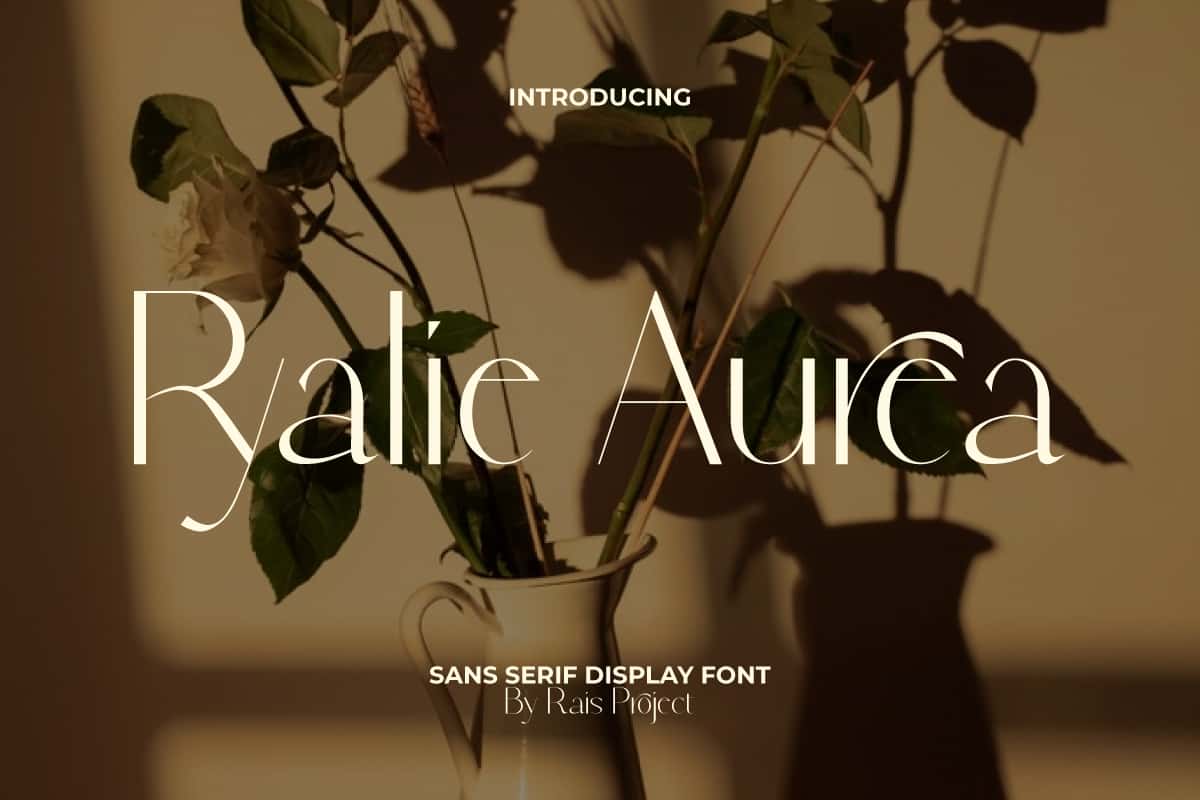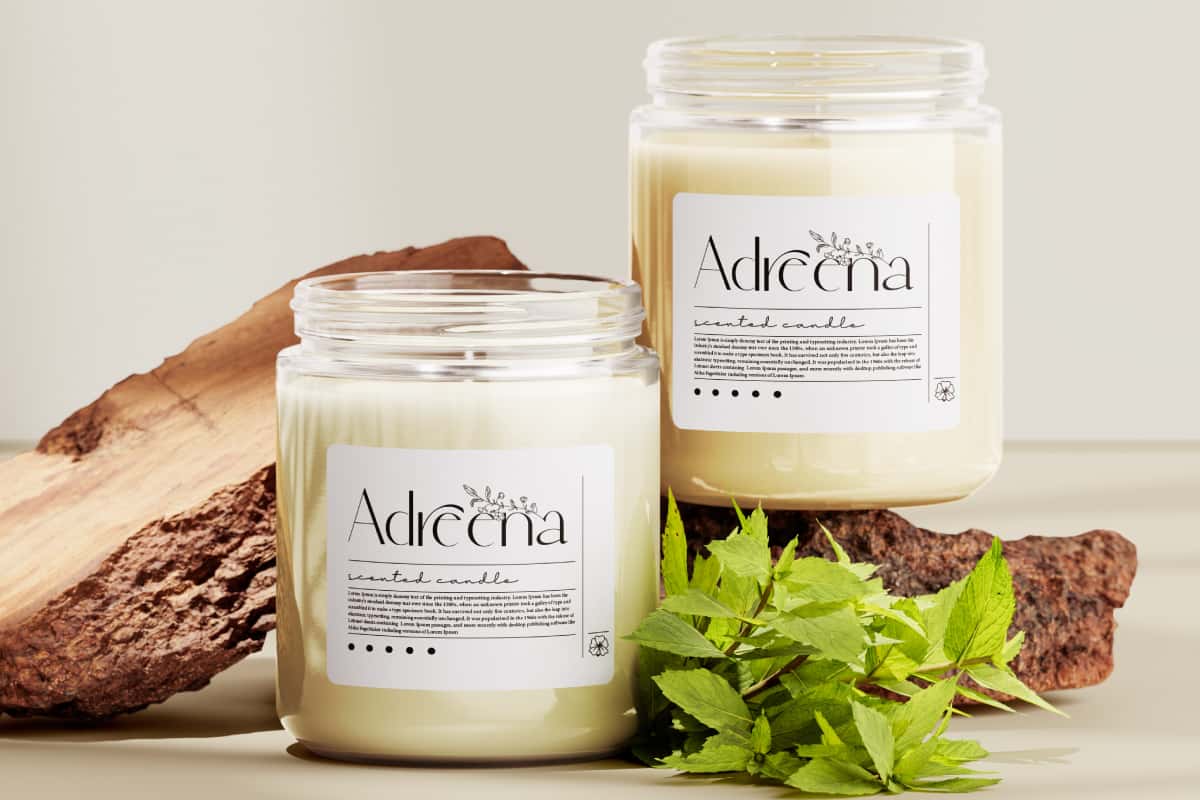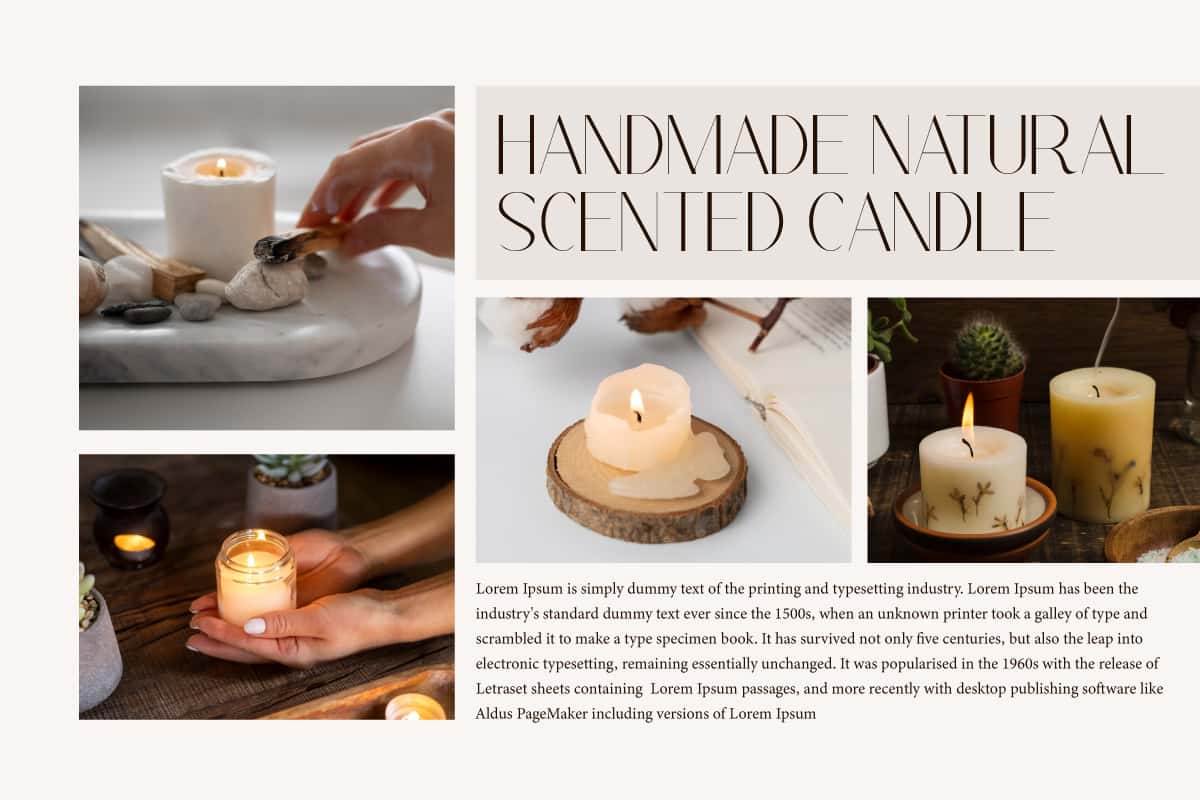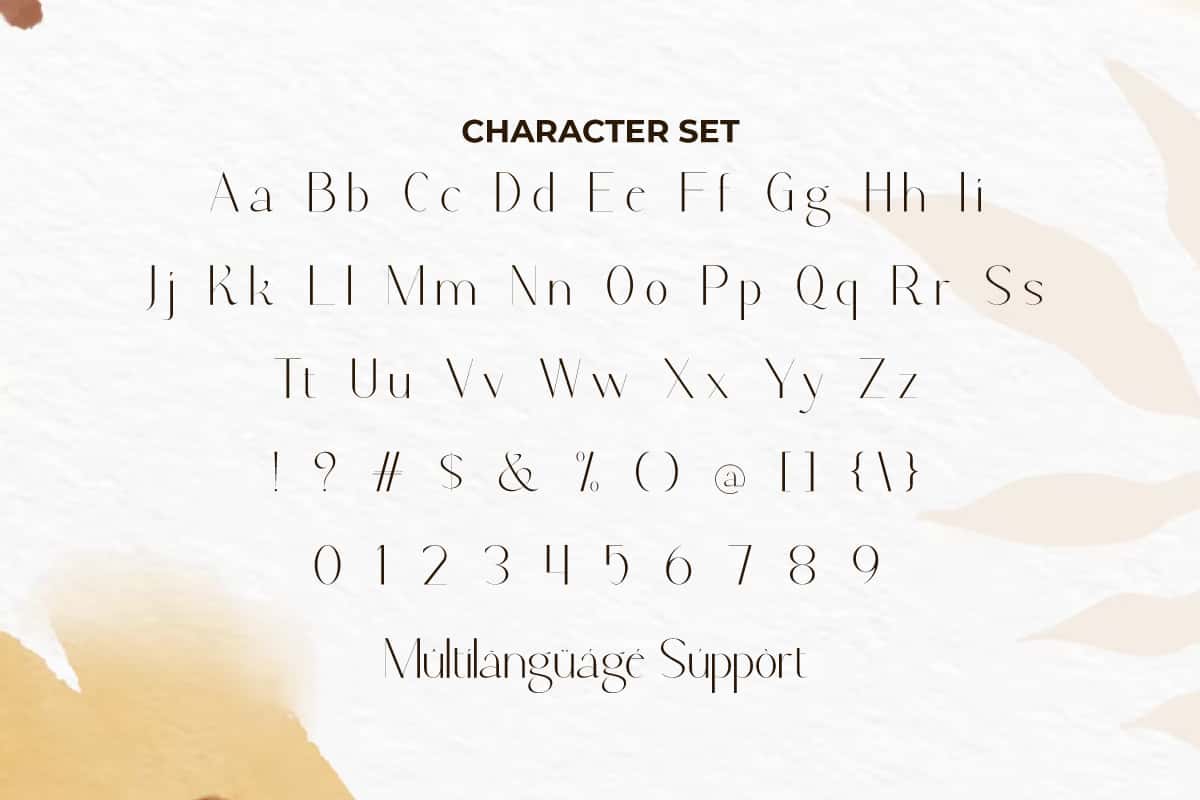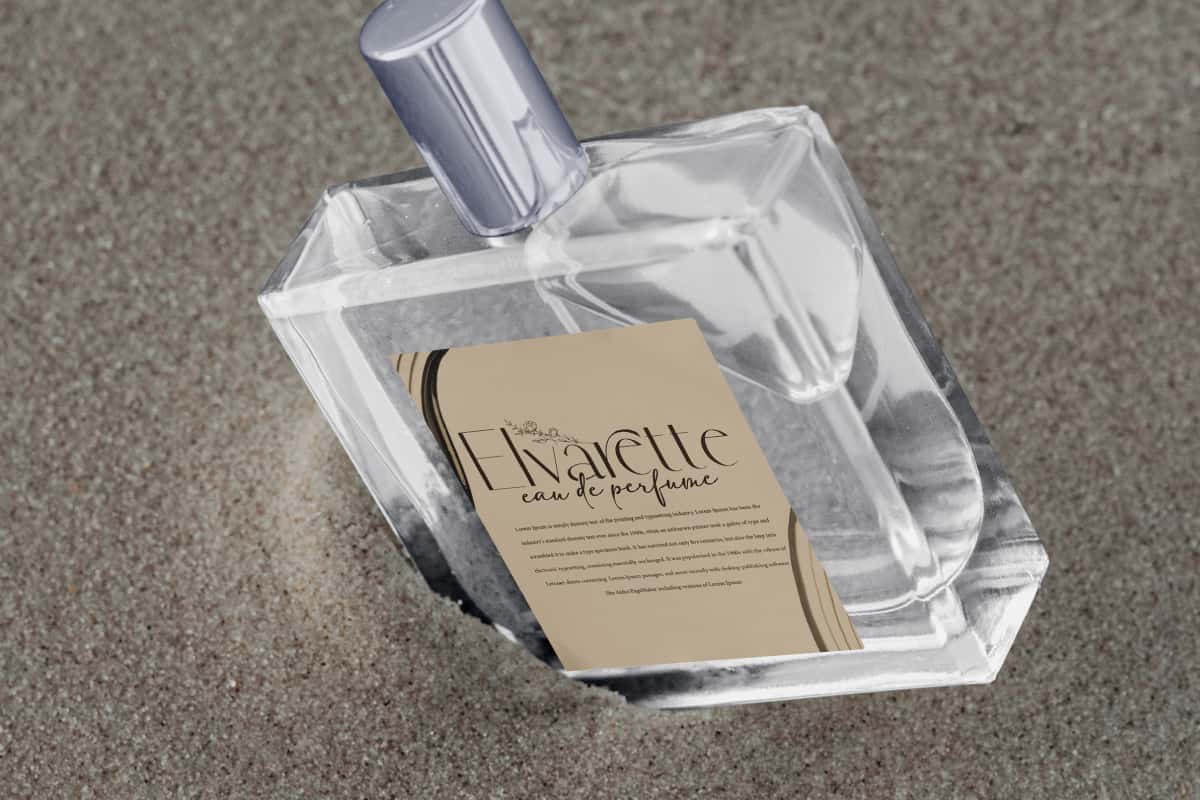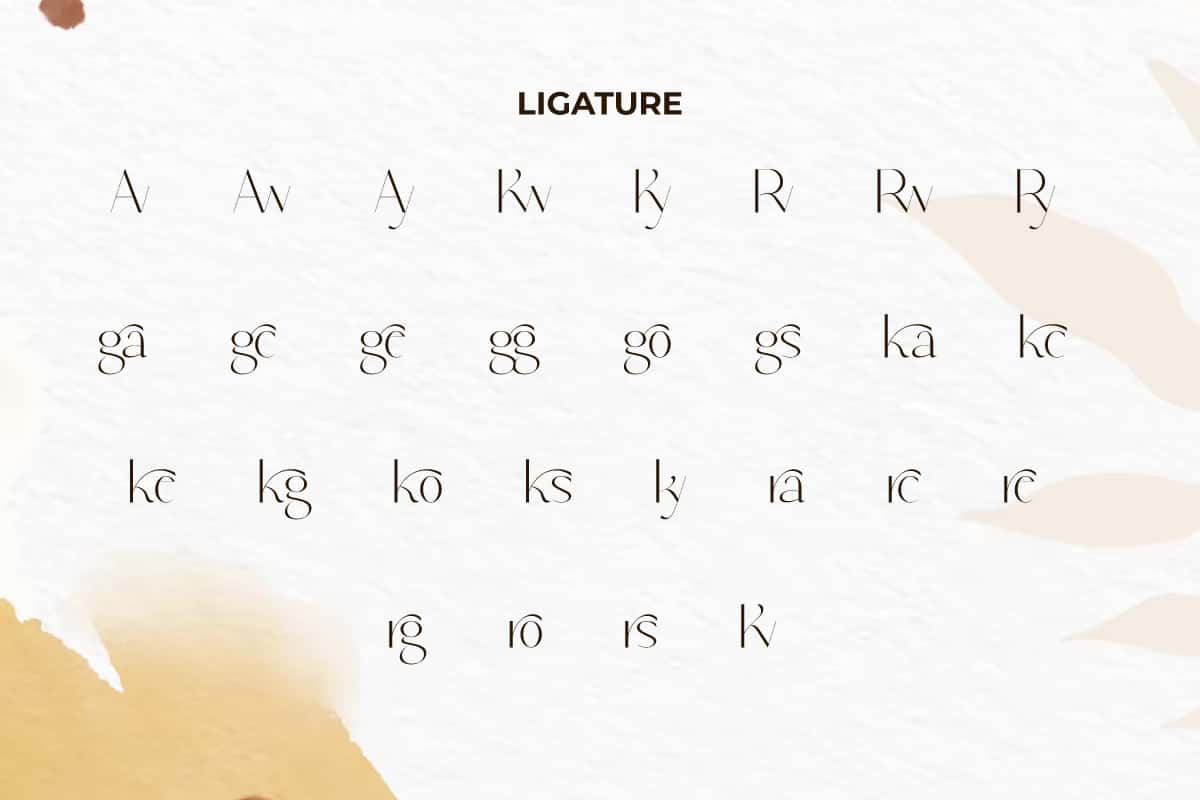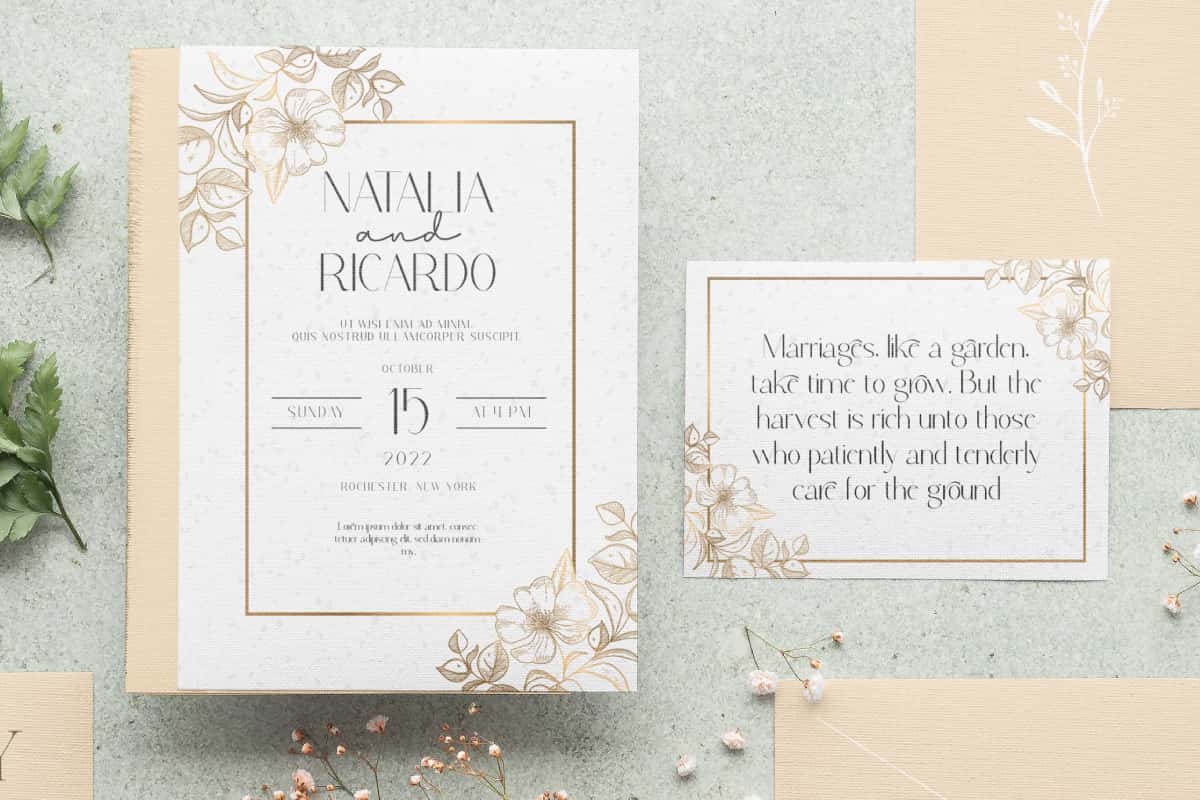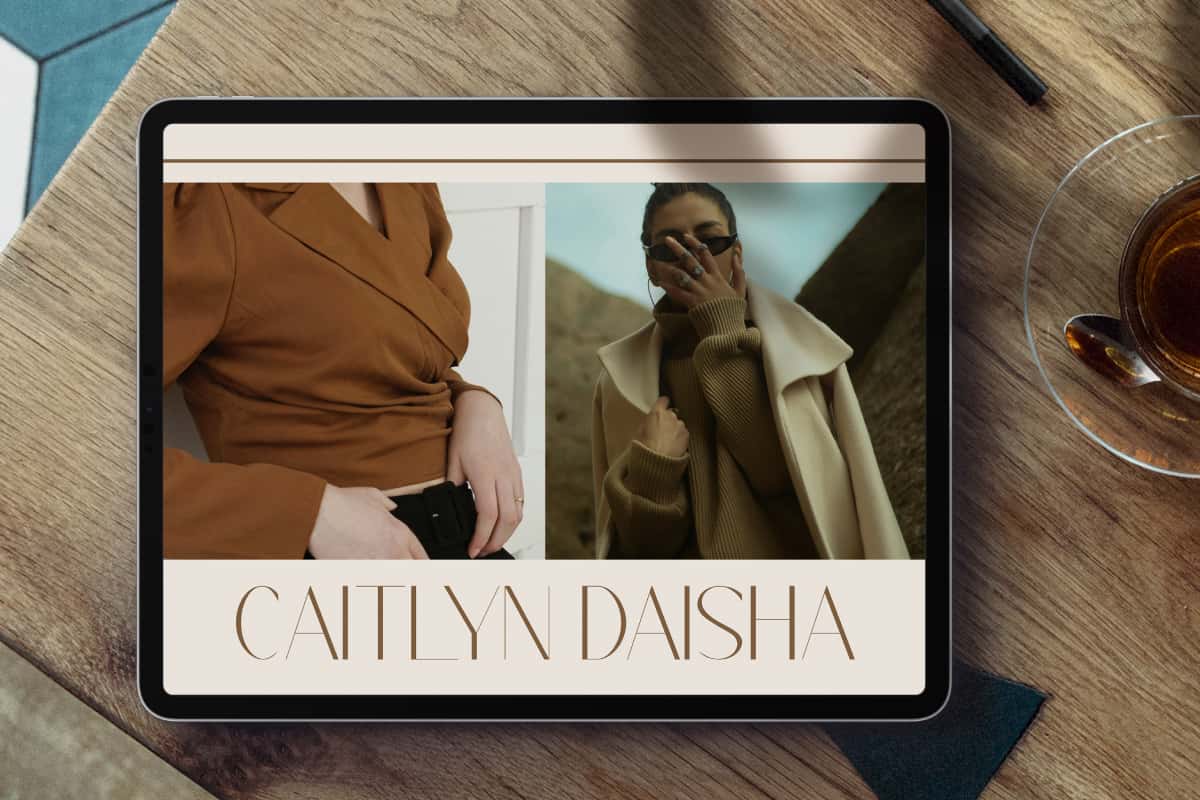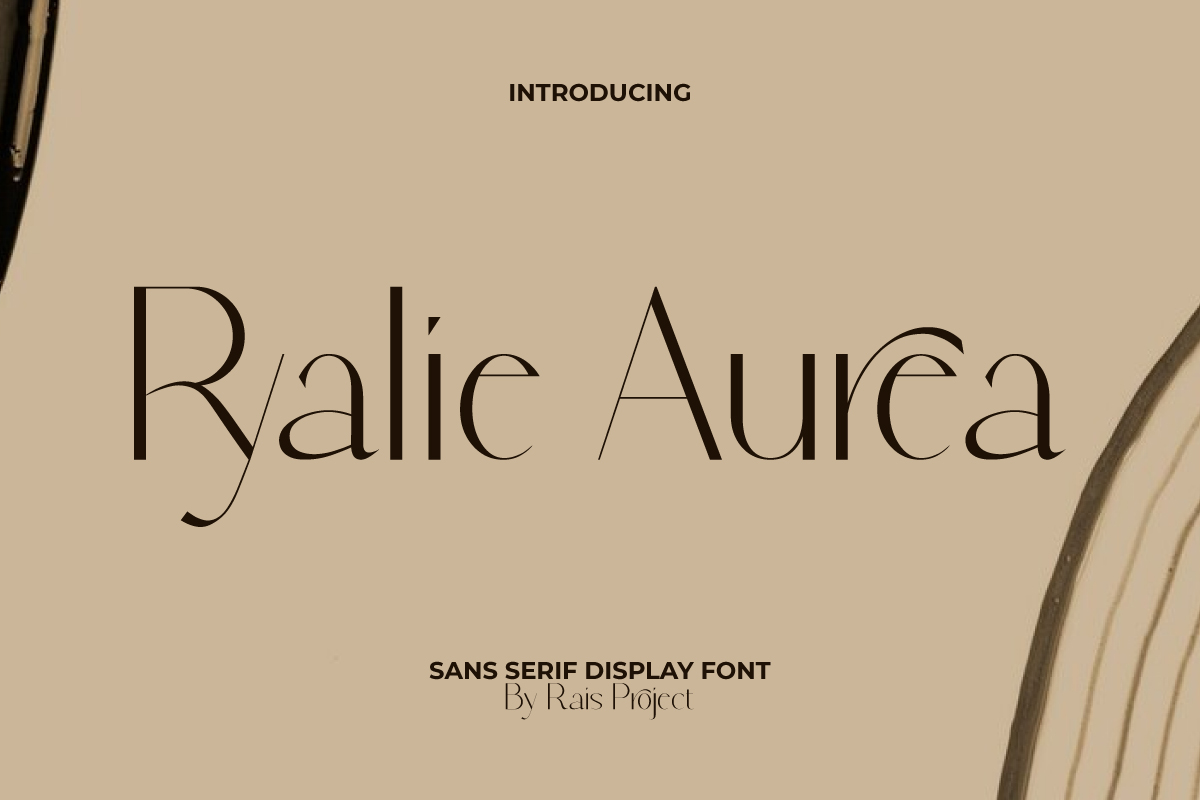
Ryalie Aurea Font
Ryalie Aurea Font is a modern sans serif font that can create clean and classy designs!
Ryalie Aurea Font is a sans serif display font that can give an expensive impression, by RaisProject. This font can give a clean and luxurious look to your design because of the charm it has. It will look good for label, invitation, signage, stationery, brand image, cover, custom design, poster, product packaging, quotes, website, and more!
Ryalie Aurea Font includes a full set of Uppercase and Lowercase Letters, Numerals, Punctuation, Symbol, and Ligature character. This modern font will be suitable for various industries, such as event or wedding organizer, fashion, accessories and jewelry, advertisement, florist, homeware, perfume, photography, printing, publishing, real estate, etc.